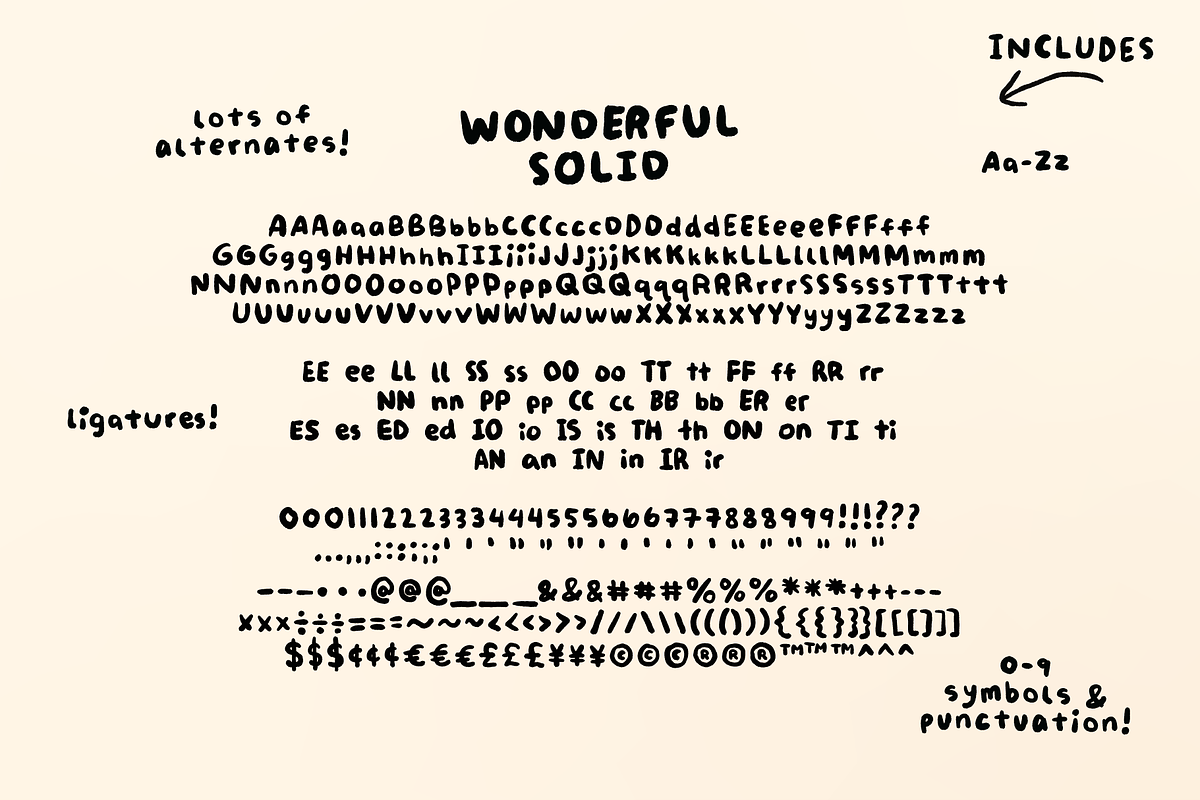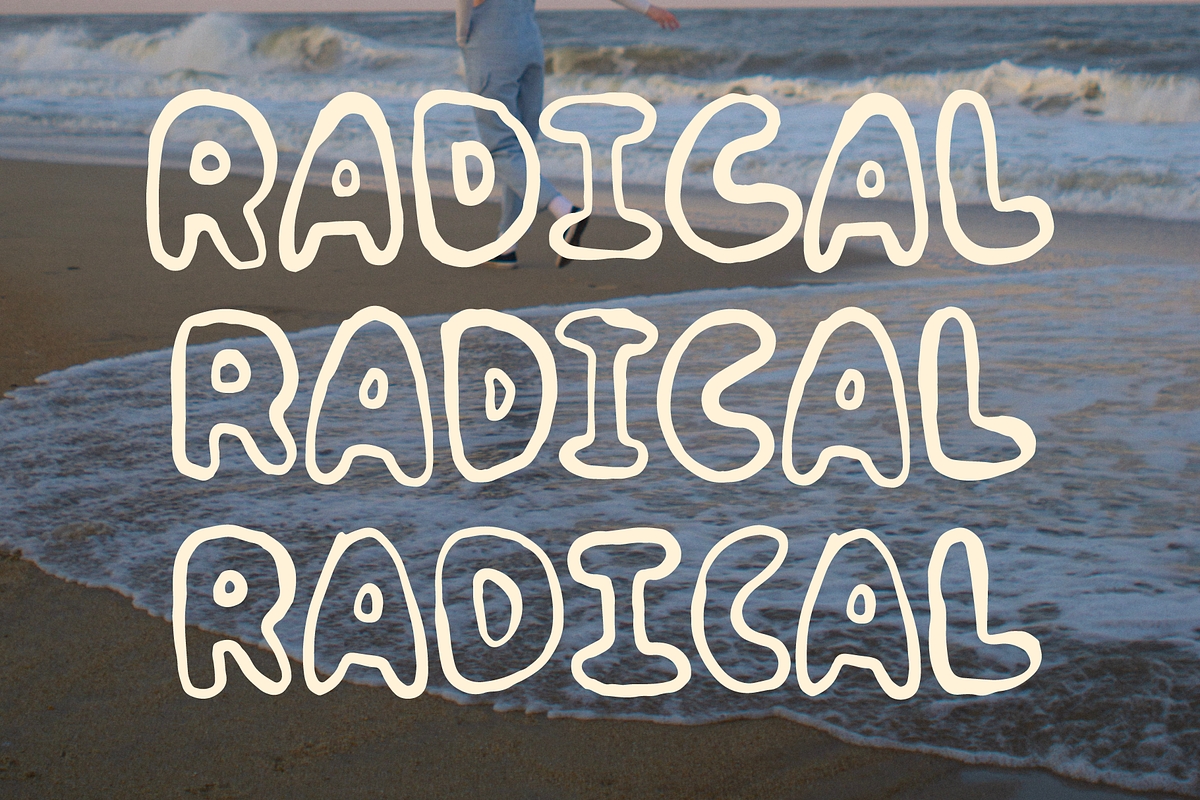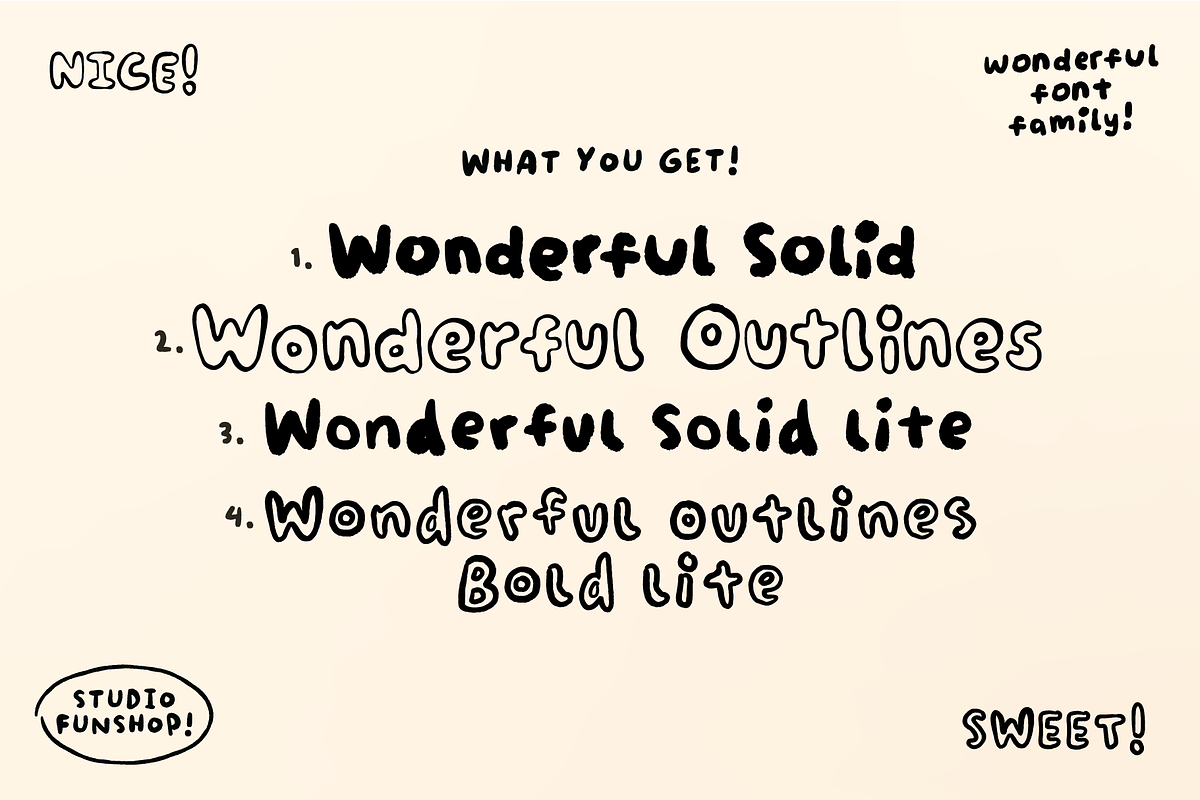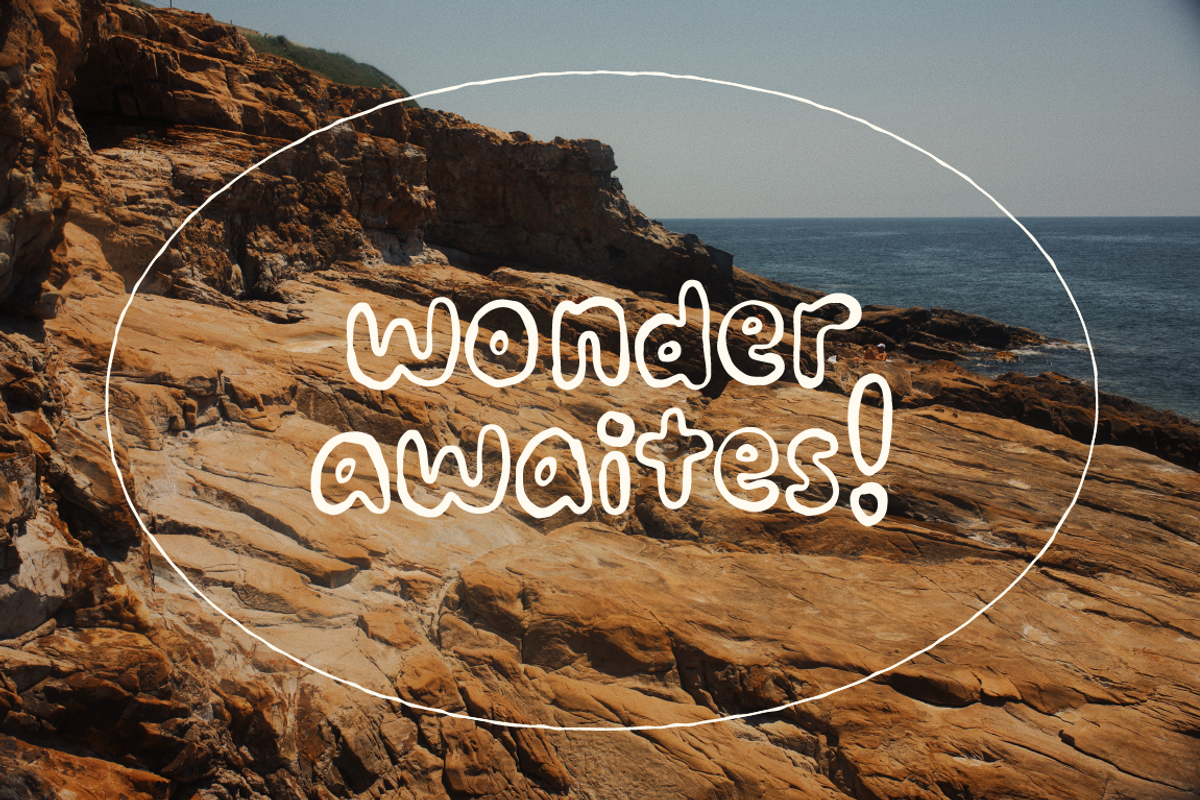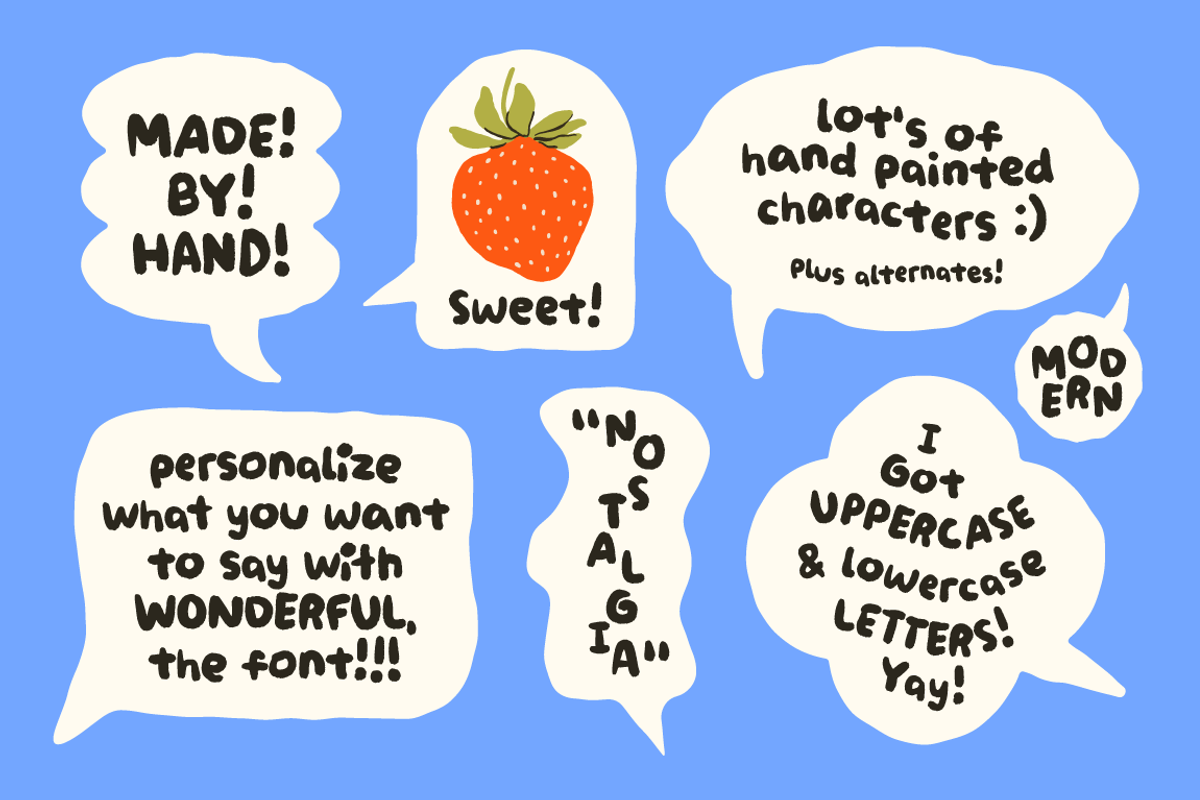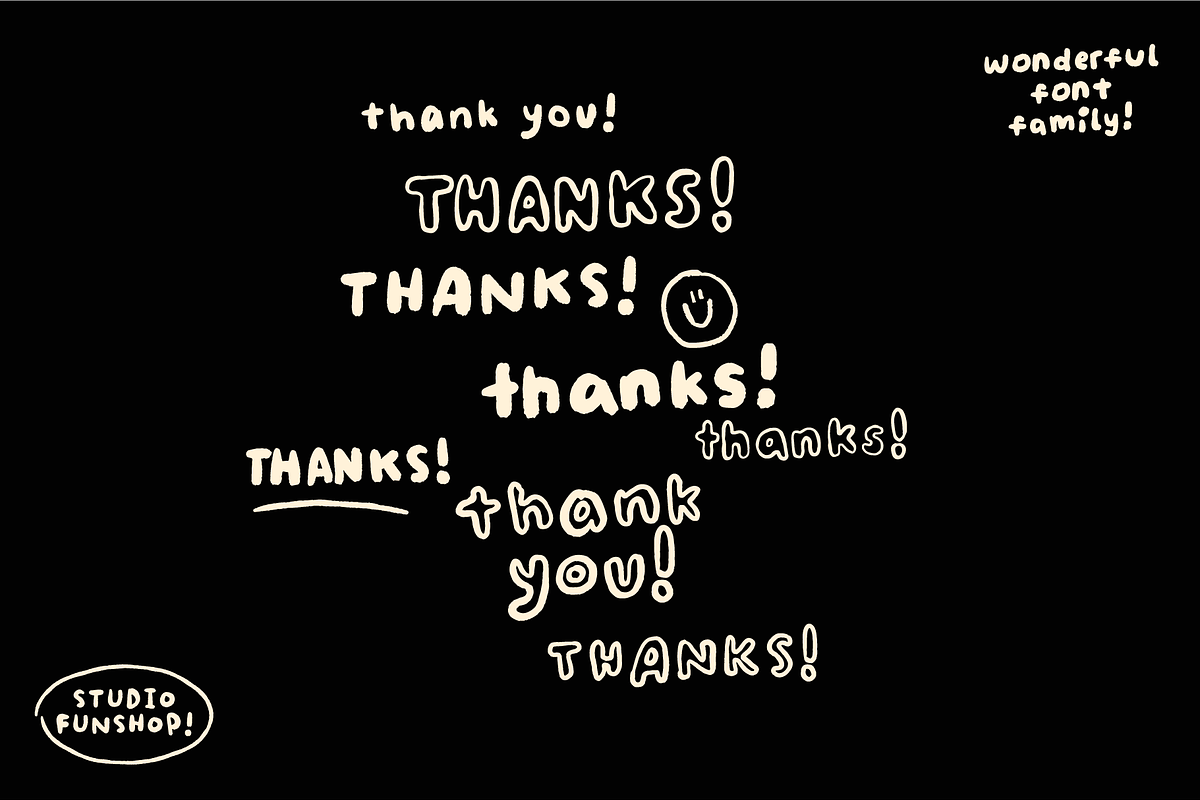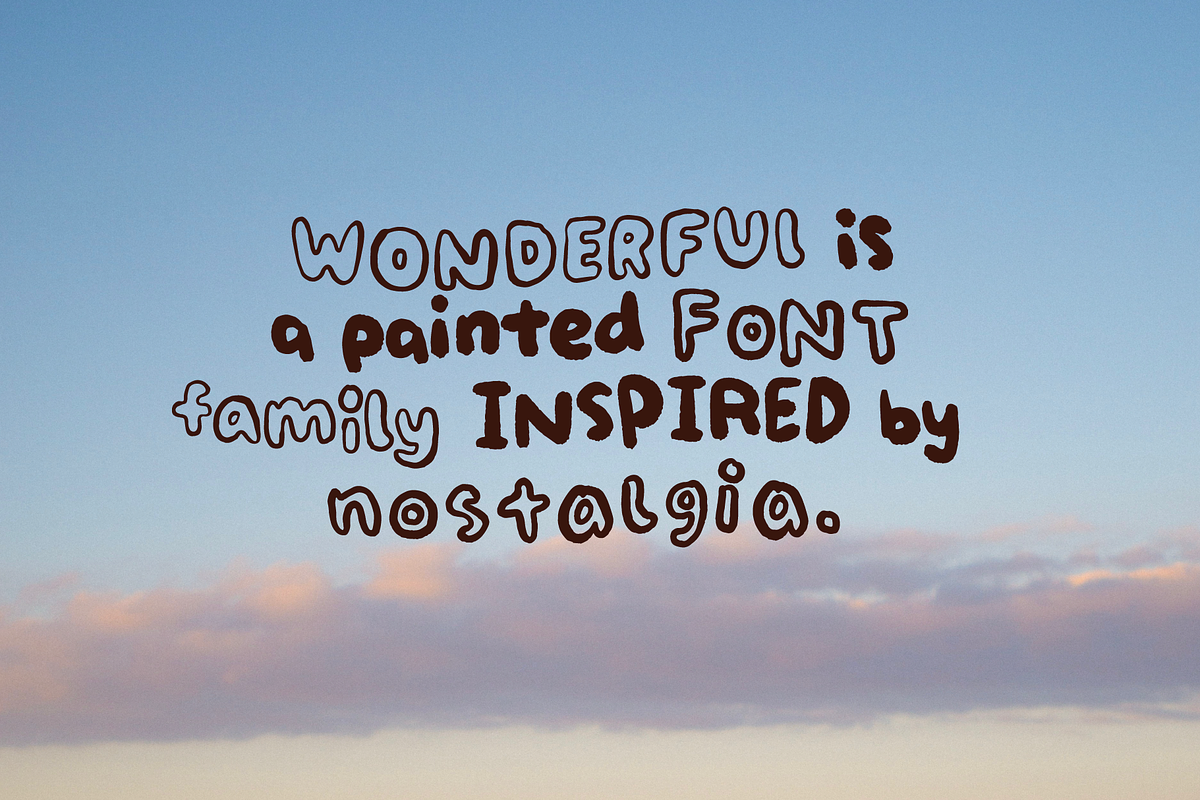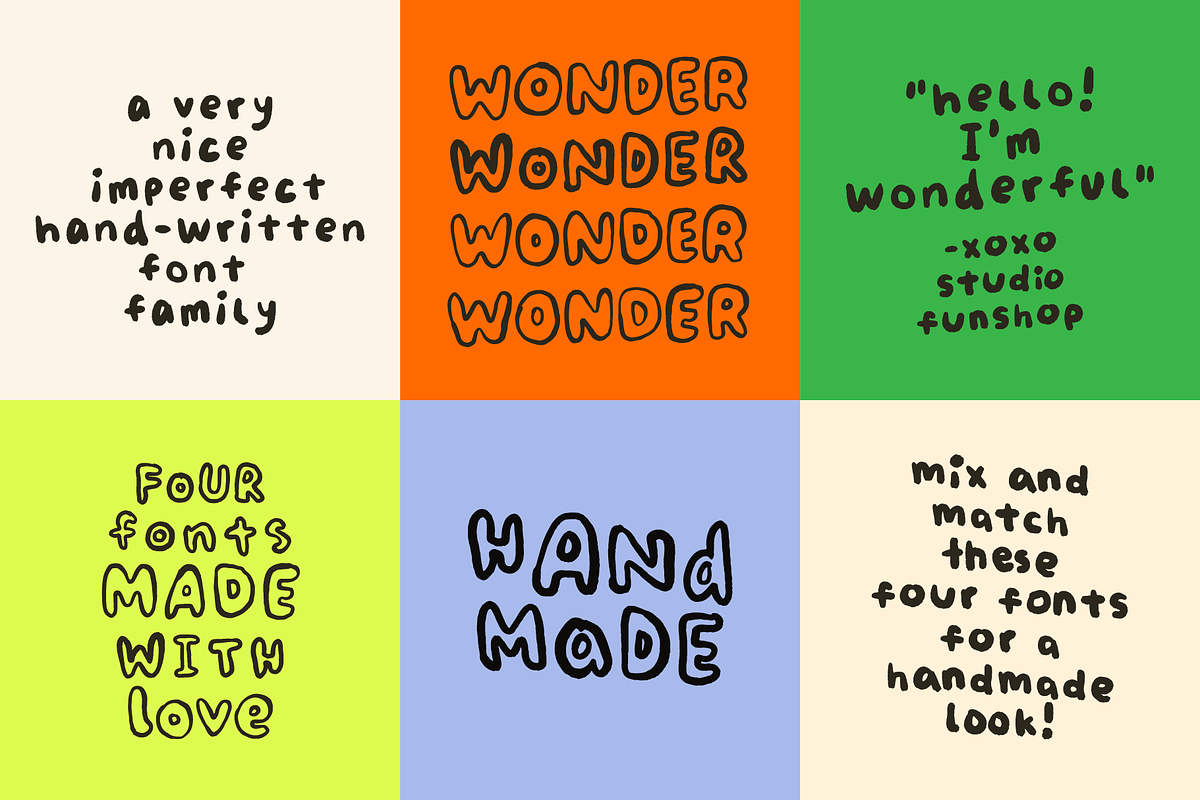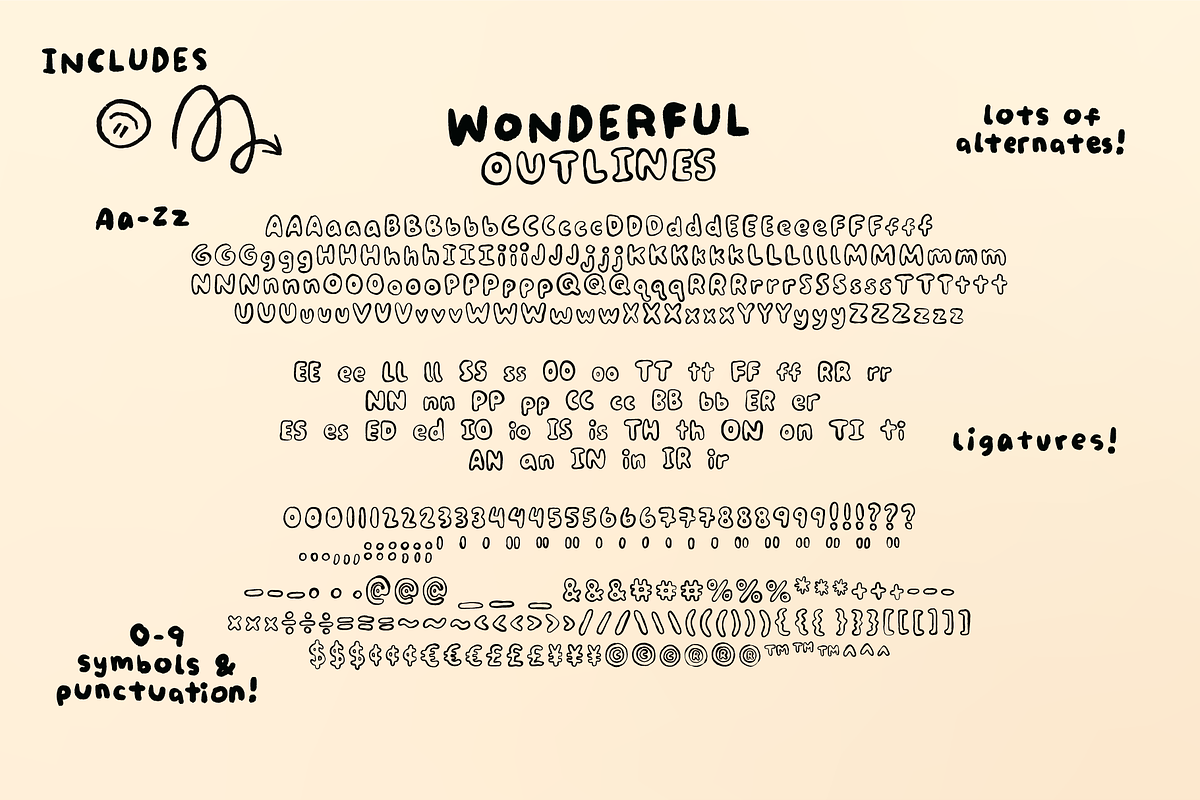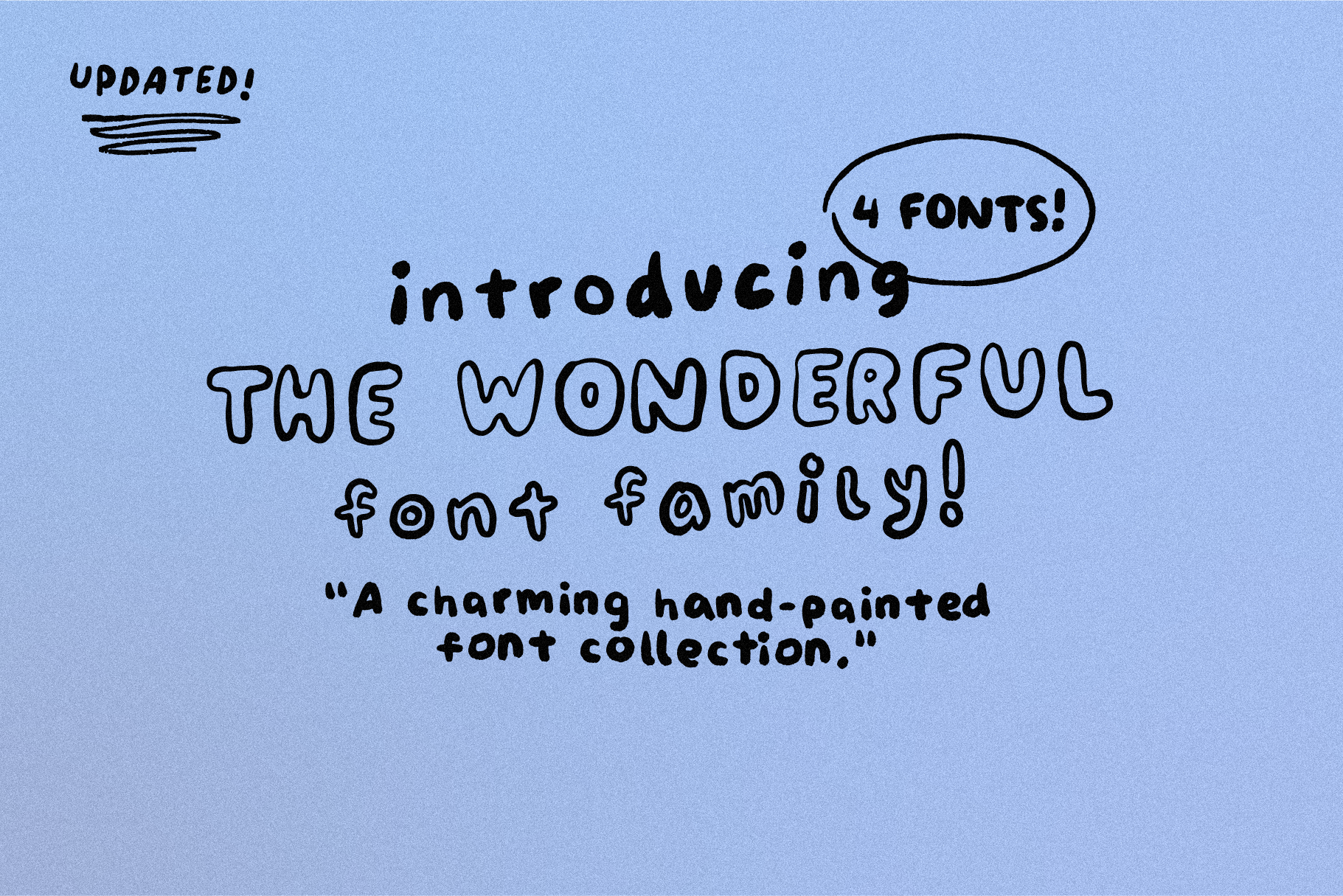
Wonderful! 4 Fonts! Handwriting Set!
Wonderful Font Family! Painted, Handwriting, Goodness!
Add a handmade touch with this handwriting font. Wonderful is a realistic handwritten font family inspired by nostalgia! Works great for display, quotes, notes, layered over photos, or mixed with illustrations!
Each character was hand painted by me to get those wonderful handmade variations that make this font unique. Includes alternates for ultimate hand-lettered wonderfulness.
What's in the fonts?
- Solid and Outlines Styles: Uppercase Letters A-Z! Lowercase Letters a-z! Numbers! Symbols! Punctuation! Multiple Alternate Characters! Ligatures! (see slides!)
- Bonus "Lite" Styles: Uppercase Letters A-Z! Lowercase Letters a-z! Numbers! Symbols! Punctuation! (see slides!)